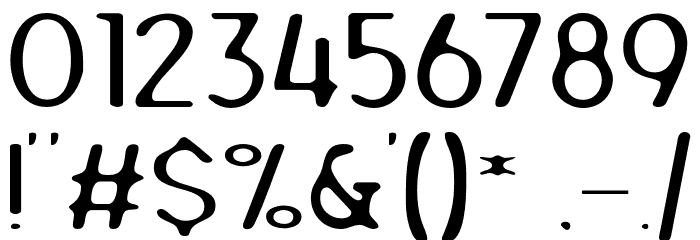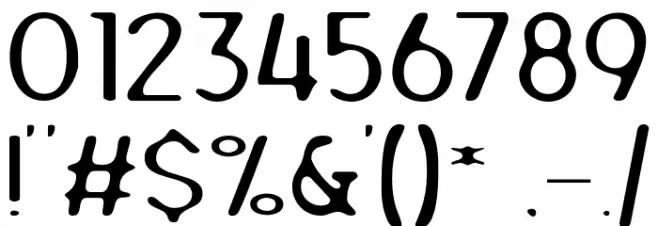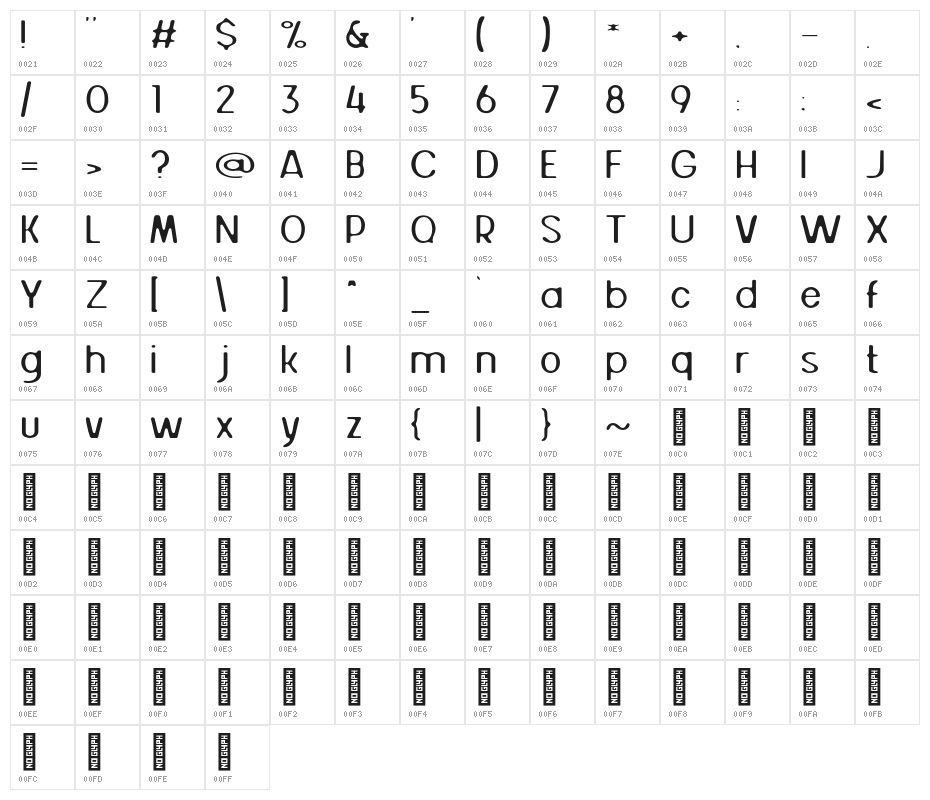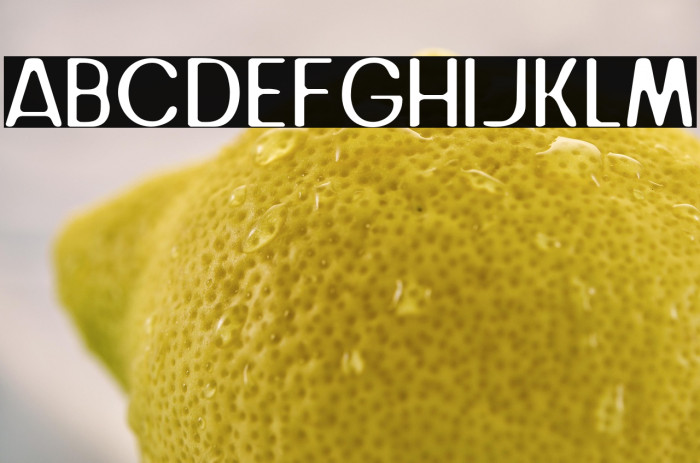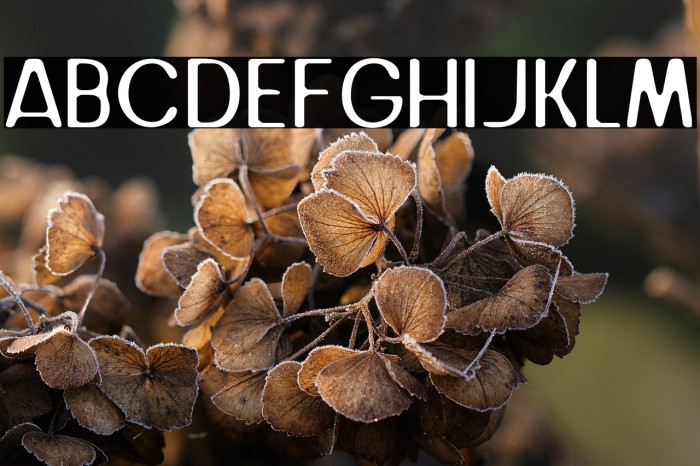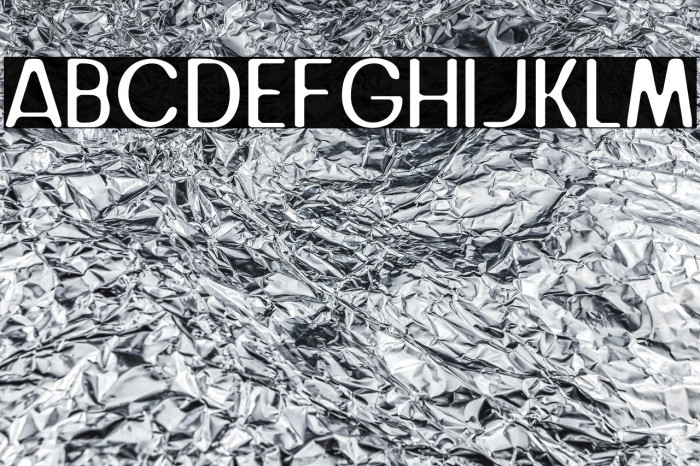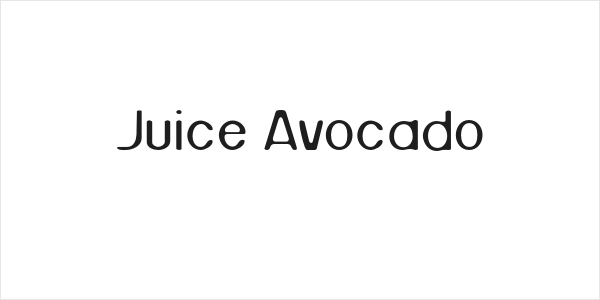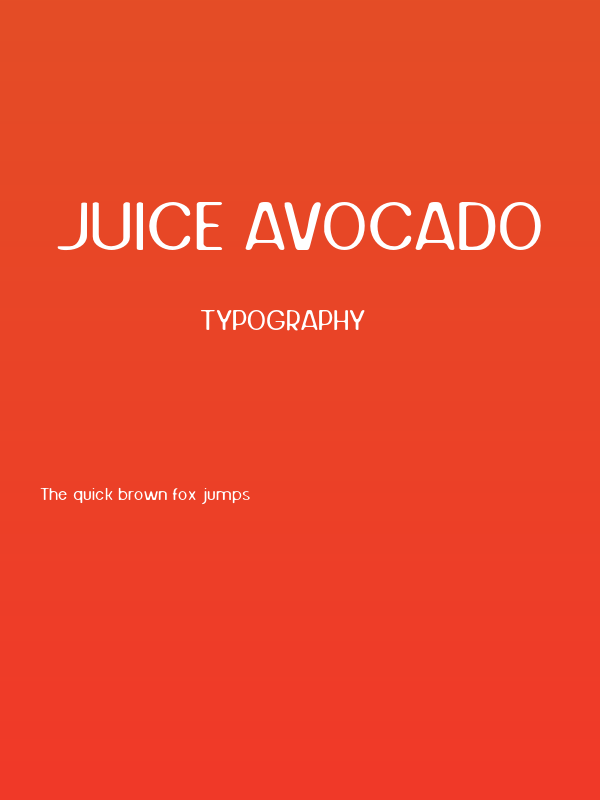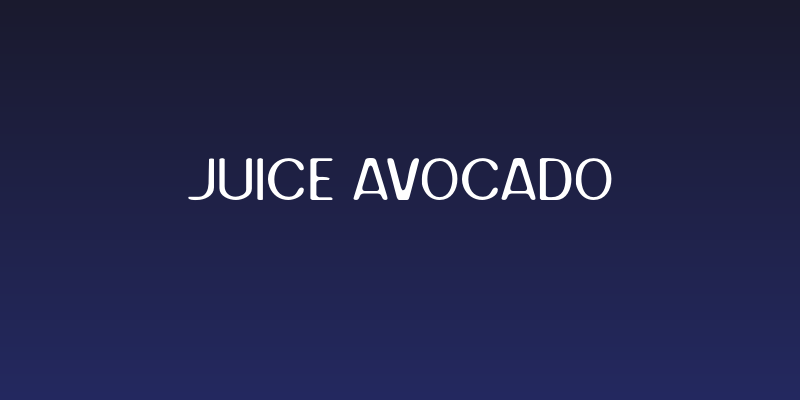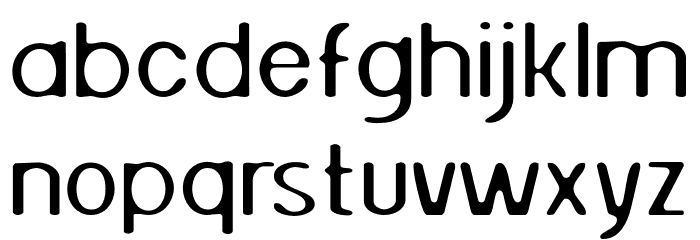
Juice Avocado Font
Juice Avocado Description
This font features a playful and rounded style, characterized by its smooth curves and friendly appearance. The letters have a consistent stroke width, giving it a uniform look. The uppercase letters are slightly taller than the lowercase, with a distinctive rounded quality that adds a touch of whimsy. The numerals and special characters maintain the same playful aesthetic, making it suitable for a variety of creative projects. Its legibility and unique style make it ideal for designs that aim to convey a sense of fun and approachability.
| Proposed Projects | Ideal for children's books, playful branding, casual invitations, and creative posters. |